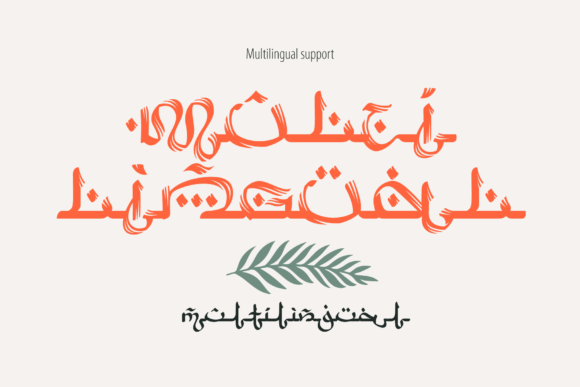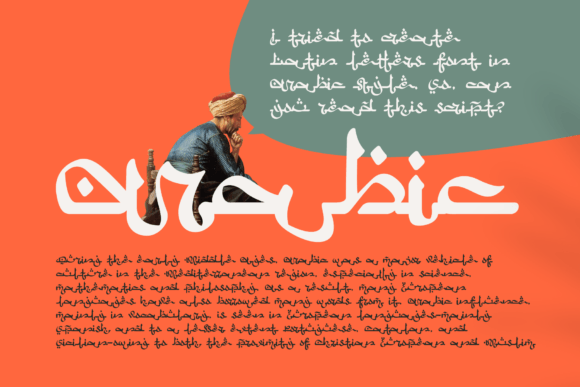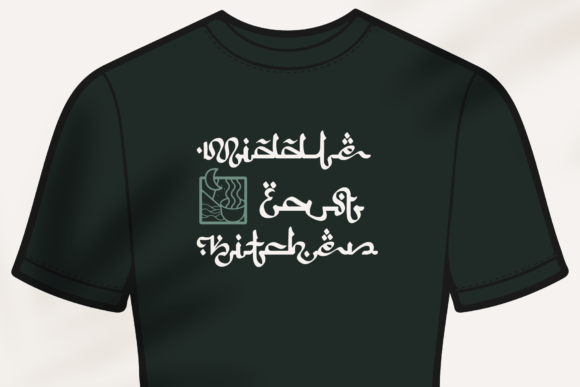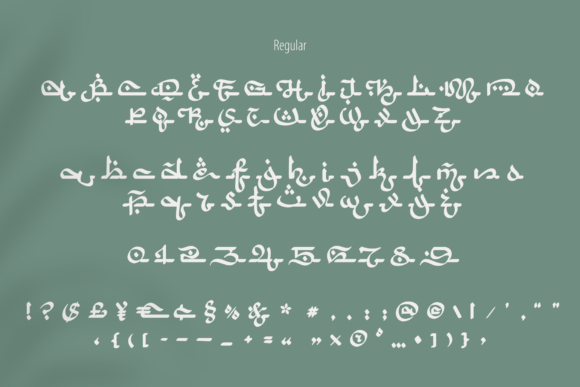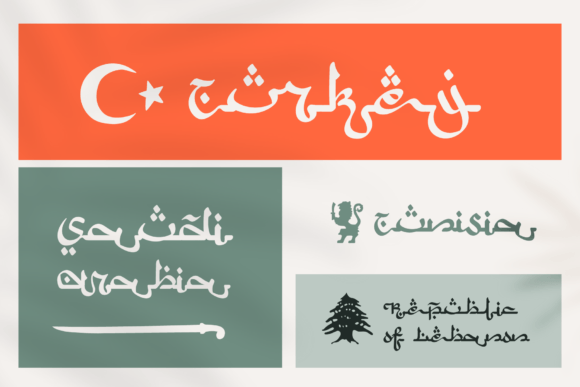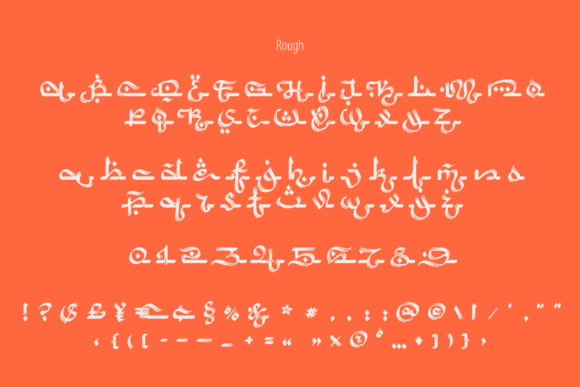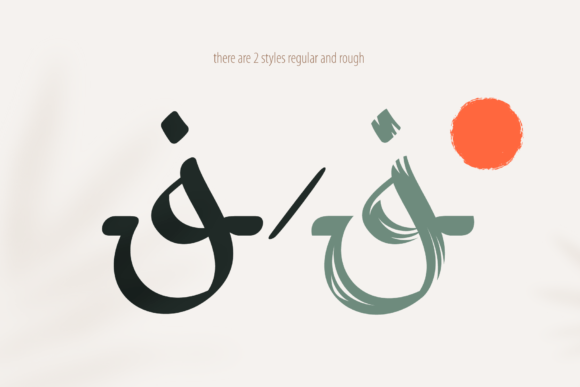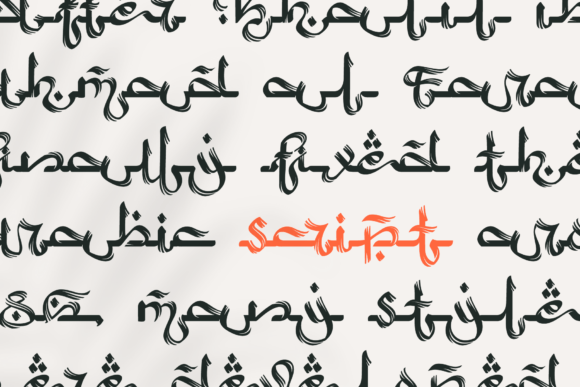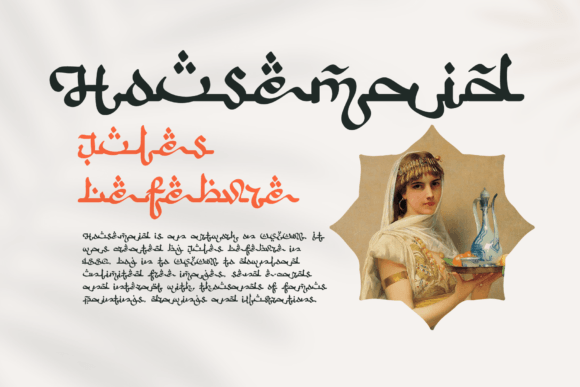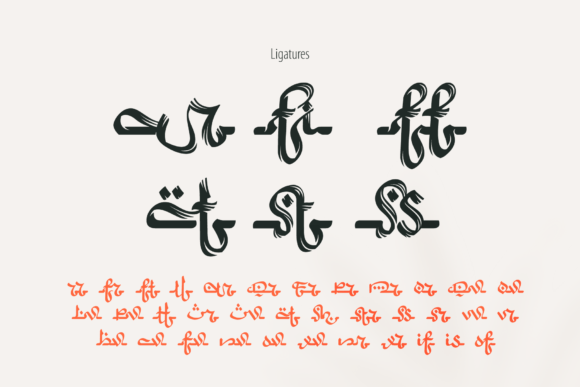
Arabic Script Font
“Arabic Script” stands out as a unique and captivating script font, drawing inspiration from classical Arabic calligraphy. Tailored for versatility and cultural resonance, this font offers a perfect solution for designing a range of creative projects, particularly those with a focus on Ramadan advertising, Islamic quotes posters, Arabic-style greeting cards, Eastern brand logos, and more.
The uniqueness of “Arabic Script” lies in its distinct design, inspired by the artistry of classical Arabic calligraphy. This characteristic adds an authentic touch to the font, making it well-suited for projects that seek to evoke the rich cultural heritage of Arabic script.
Designed with a keen eye for detail, “Arabic Script” becomes an ideal choice for Ramadan advertising. Its intricate strokes and curves can be leveraged to create visually appealing and culturally resonant designs that align with the spirit of the season.
Islamic quotes posters benefit from the font’s connection to classical Arabic calligraphy, adding an extra layer of authenticity to the messages conveyed. The script’s unique style enhances the visual impact of the quotes, making them more visually compelling.
Arabic-style greeting cards gain a touch of elegance and cultural significance with the use of “Arabic Script.” The font’s design allows for creative and artistic expressions in conveying heartfelt messages, making it an excellent choice for greeting card designs.
Eastern brand logos can be infused with a sense of identity and authenticity through the incorporation of “Arabic Script.” Whether used in full text or selectively for brand elements, the font provides a unique visual identity for brands with an Eastern or Arabic influence.
In conclusion, “Arabic Script” transcends being merely a font; it’s a design tool that bridges cultural aesthetics with modern design needs. Its inspiration from classical Arabic calligraphy makes it a compelling choice for projects that require a touch of authenticity and cultural richness. Incorporating “Arabic Script” into your design toolkit opens up a realm of possibilities for creating visually stunning and culturally resonant designs.